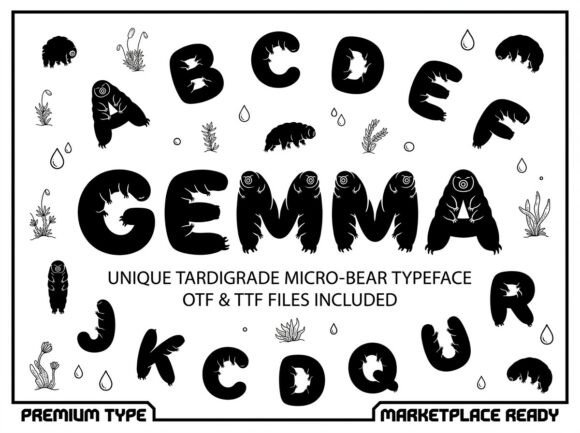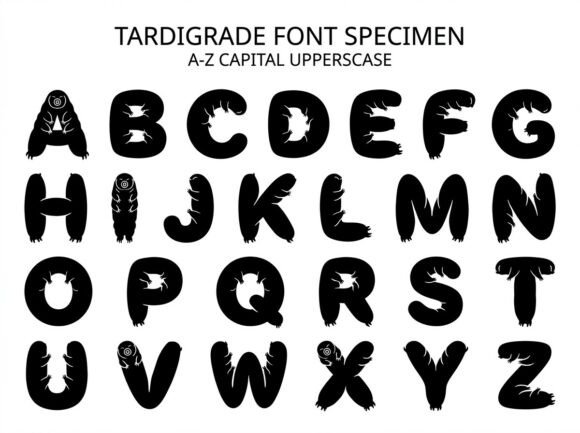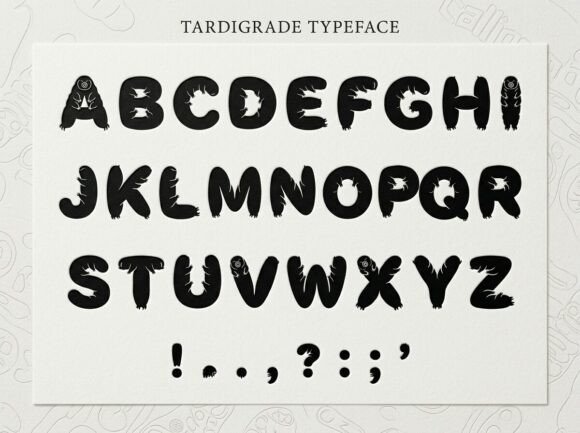
Introducing Gemma Font: A Stunning Decorative Display Font
Are you tired of using the same old fonts for your creative projects? Look no further than Gemma Font, a unique and artistic display font that’s sure to turn heads. Designed to be the center of attention, Gemma Font features a strong visual personality and distinctive artistic elements that will help you break away from the ordinary.
What Makes Gemma Font Special?
Gemma Font is a versatile decorative display font that’s perfect for creators who want to add a touch of elegance and sophistication to their work. With its bold and eye-catching design, this font is ideal for use in a variety of applications, including:
- Headlines: Make a statement with bold and attention-grabbing headlines that showcase your brand’s personality.
- Logos: Create a lasting impression with a unique and artistic logo that sets your brand apart.
- Packaging: Add a touch of luxury and sophistication to your product packaging with Gemma Font’s elegant design.
⚠️ IMPORTANT NOTE BEFORE PURCHASE: Gemma Font is an ALL-CAPS (Uppercase Only) display typeface, which means it does not include lowercase letters. This font is specifically designed for high-impact headlines, logos, and decorative initials where every letter is a work of art.
Why Choose Gemma Font?
Gemma Font is the perfect choice for designers and crafters who want to add a touch of elegance and sophistication to their work. Here are just a few reasons why:
- Unique Design: Gemma Font features a distinctive and artistic design that’s sure to turn heads.
- Versatility: This font is versatile enough for use in a variety of applications, from bold headlines to artistic logos and creative packaging.
- Professional Finish: Despite its bold and artistic design, Gemma Font maintains a professional and polished finish that’s perfect for use in high-end designs.
Tips for Using Gemma Font
Here are a few tips for getting the most out of Gemma Font:
- Use it sparingly: Gemma Font is a bold and attention-grabbing font, so use it sparingly to avoid overwhelming your design.
- Pair it with a neutral font: Pair Gemma Font with a neutral font to create a striking contrast and add visual interest to your design.
- Experiment with colors: Gemma Font looks great in a variety of colors, so don’t be afraid to experiment and find the perfect hue for your design.
Gemma Font is a stunning decorative display font that’s perfect for designers and crafters who want to add a touch of elegance and sophistication to their work. With its unique design, versatility, and professional finish, this font is sure to become a go-to choice for anyone looking to create bold and eye-catching designs. So why wait? Purchase Gemma Font today and start creating stunning designs that turn heads!